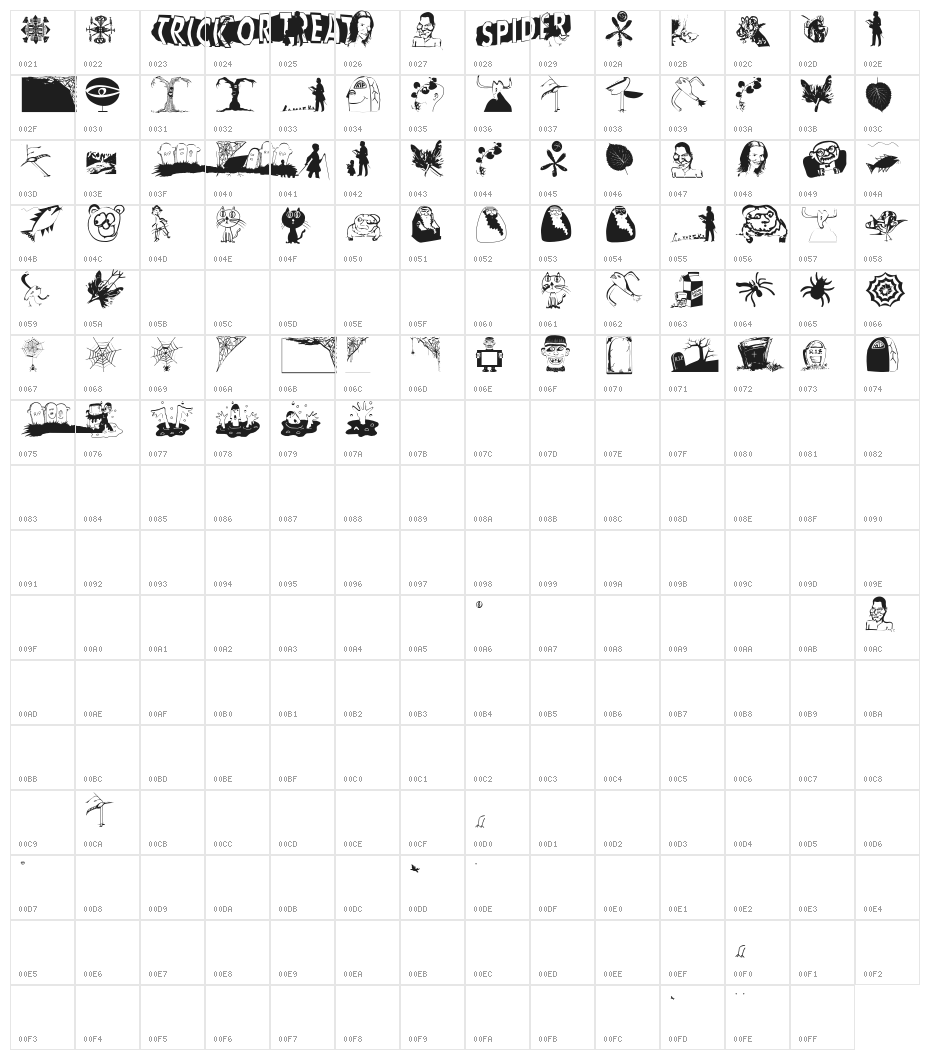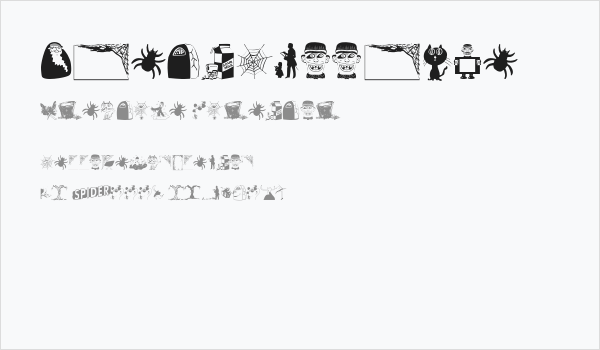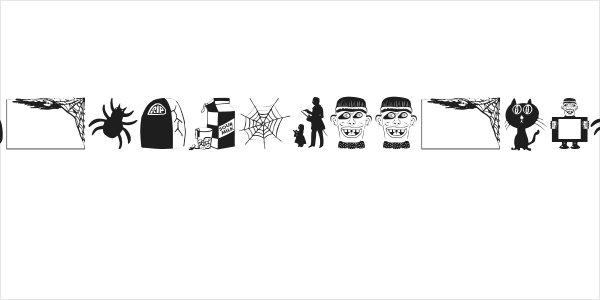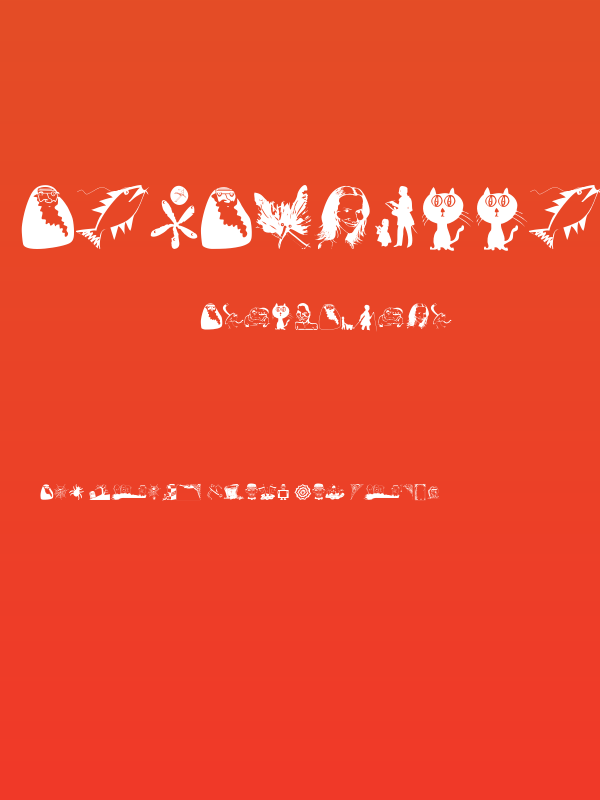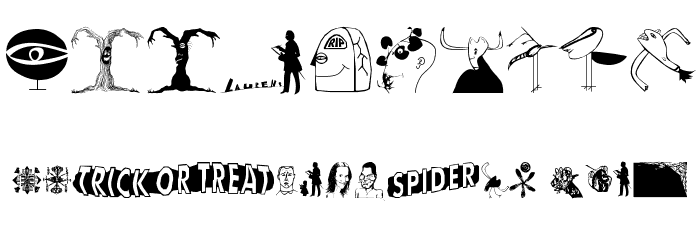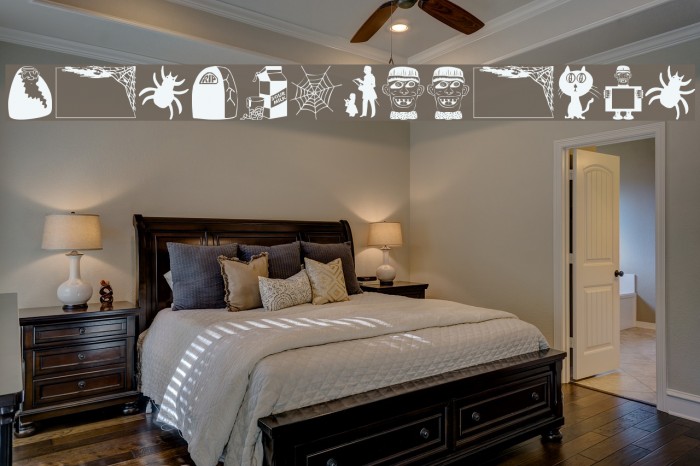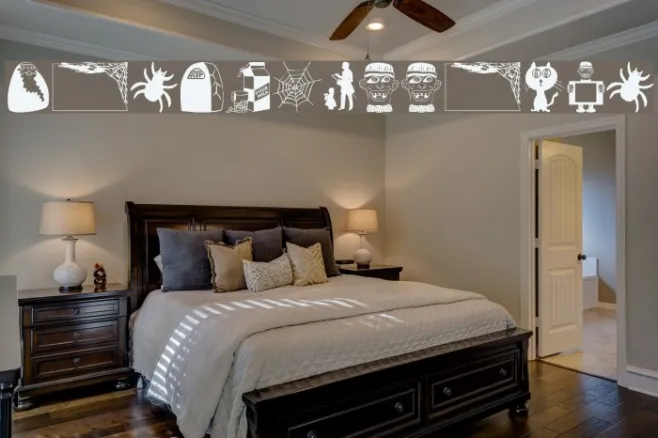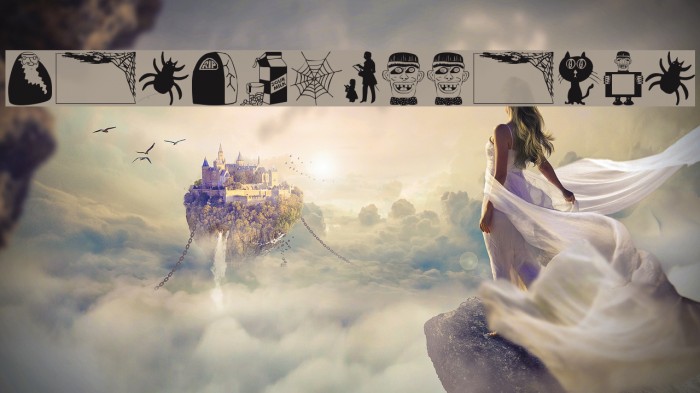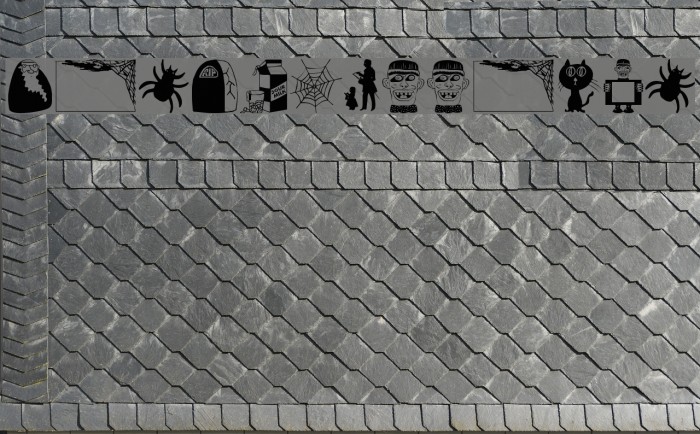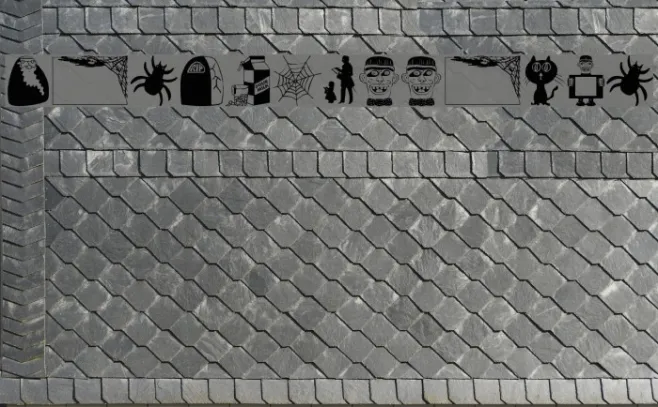
SketchBookOne Font
SketchBookOne Description
This is not a traditional font but rather a collection of illustrative and decorative elements. Each character is represented by a unique drawing or symbol, ranging from whimsical figures to Halloween-themed graphics. The designs include various creatures, objects, and abstract forms, each with a distinct artistic style. The elements are playful and creative, making them suitable for decorative purposes rather than standard text representation.
| Use Case | Decorative elements, Illustrations, Themed designs |
| Proposed Projects | Ideal for Halloween-themed projects, creative invitations, decorative posters, and artistic designs where unique symbols are needed. |